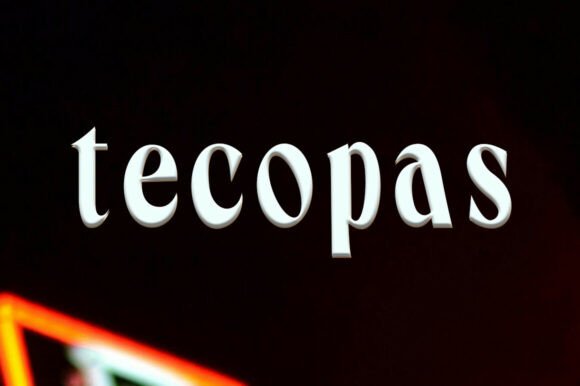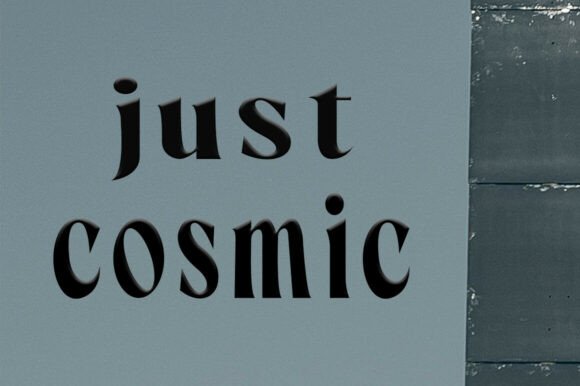
Discover the Elegance of Casablanca Font: A Timeless Serif Choice for Designers
In the world of typography, few fonts manage to strike a balance between classic elegance and modern subtlety as effectively as the Casablanca font. This serif font has been gaining attention among designers and crafters for its unique ability to convey a sense of luxury, warmth, and familiarity, making it an ideal choice for a variety of design projects. In this article, we’ll explore the characteristics, uses, and benefits of the Casablanca font, and why it has become a go-to choice for those looking to add a touch of timeless beauty to their designs.
The Characteristics of Casablanca Font
The Casablanca serif font is distinguished by its bold yet soft serif lines, which create a classy and easy-to-read feel. Each character is carefully crafted with balanced proportions and artistic curved details, giving the font a luxurious appearance without being overdone. The font’s classic beauty is blended with a subtle modern touch, making it versatile enough to be used in a wide range of design applications.
Uses of Casablanca Font
Casablanca font is perfect for designs that require a premium feel. Some of the ideal uses of this font include:
- Wedding Invitations: The elegant and classy feel of Casablanca font makes it an excellent choice for wedding invitations, adding a touch of sophistication and romance to the occasion.
- Product Branding: For brands looking to convey a sense of luxury and exclusivity, Casablanca font offers a timeless aesthetic that can elevate the brand’s visual identity.
- Magazine Editorials: The font’s readability and classic beauty make it suitable for use in magazine editorials, where the focus is on conveying information in an elegant and engaging manner.
- Creative Work Titles: Casablanca font can add a touch of creativity and sophistication to the titles of creative works, such as films, books, and art exhibitions.
The Uniqueness of Casablanca Font
What sets Casablanca font apart from other serif fonts is its ability to convey warmth and familiarity. While it exudes a sense of luxury and exclusivity, it also remains welcoming to the reader. This balance makes it an ideal choice for designers who want to create a sense of connection with their audience while maintaining a high level of sophistication.
Benefits of Using Casablanca Font
The benefits of using Casablanca font in your designs are numerous. Some of the key advantages include:
- Timeless Aesthetic: Casablanca font offers a classic beauty that is unlikely to go out of style, making it a valuable addition to any design project.
- Versatility: The font’s versatility makes it suitable for use in a wide range of design applications, from print to digital media.
- Readability: The font’s bold yet soft serif lines create a classy and easy-to-read feel, making it perfect for designs that require a high level of readability.
- Emotional Connection: Casablanca font’s ability to convey warmth and familiarity makes it an excellent choice for designers who want to create an emotional connection with their audience.
In conclusion, Casablanca font is a timeless serif choice that offers a unique blend of classic elegance and modern subtlety. Its characteristics, uses, and benefits make it an ideal choice for designers and crafters looking to add a touch of luxury, warmth, and familiarity to their designs. Whether you’re working on a wedding invitation, product branding, magazine editorial, or creative work title, Casablanca font is sure to elevate your design to the next level.
With its strong character and timeless aesthetic, Casablanca font is more than just an ordinary serif font; it is a visual representation of timeless, classic beauty. So, if you’re looking for a font that can help you create a sense of connection with your audience while maintaining a high level of sophistication, look no further than Casablanca font.